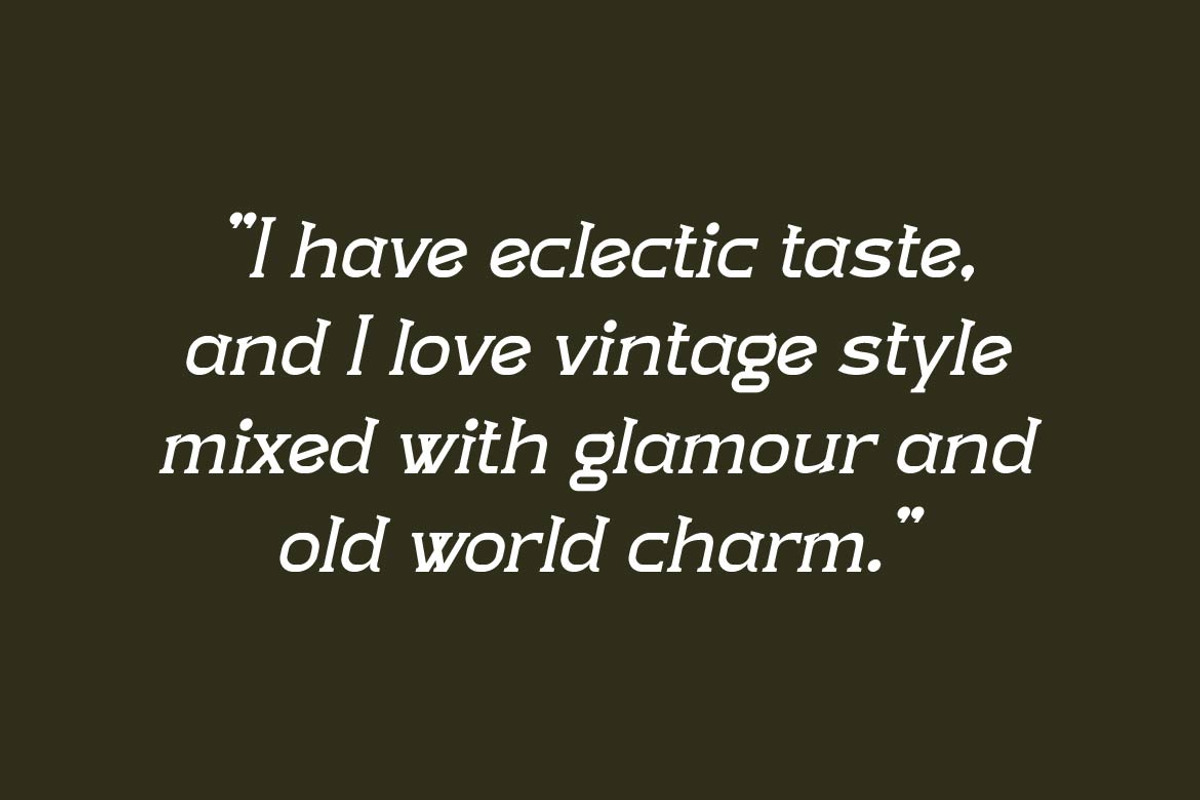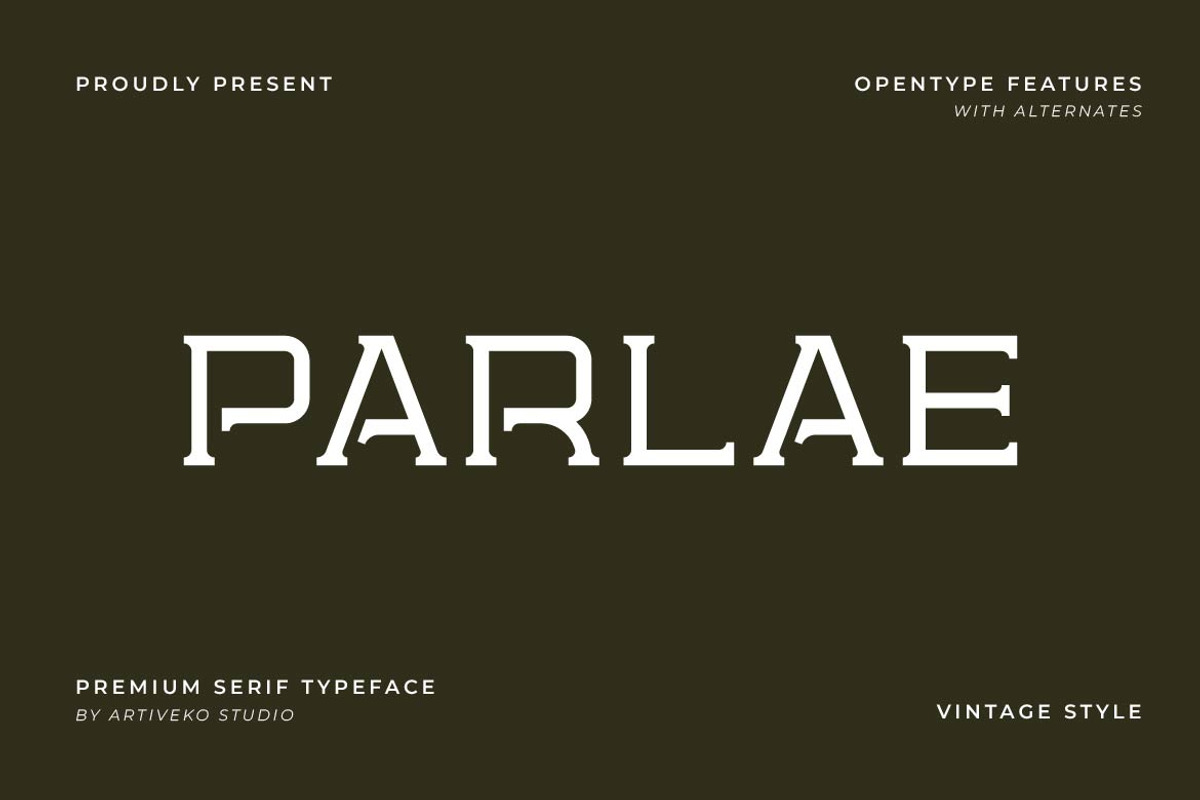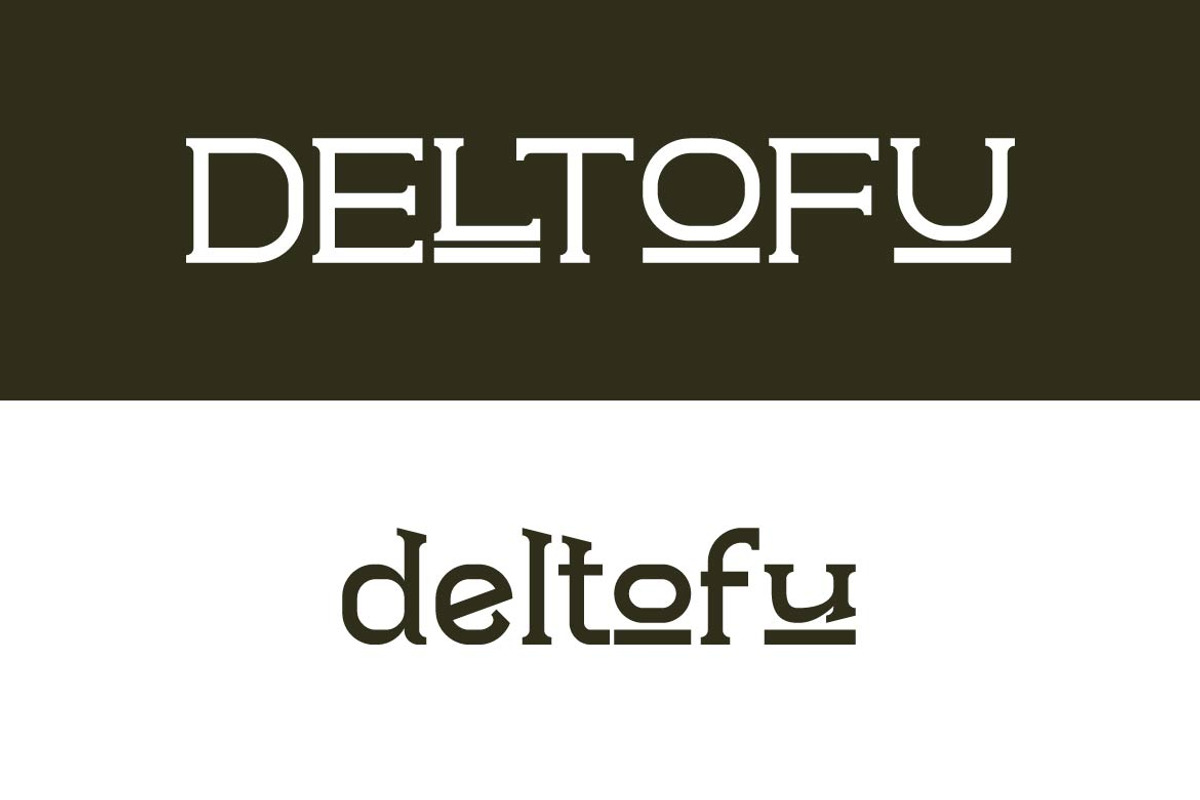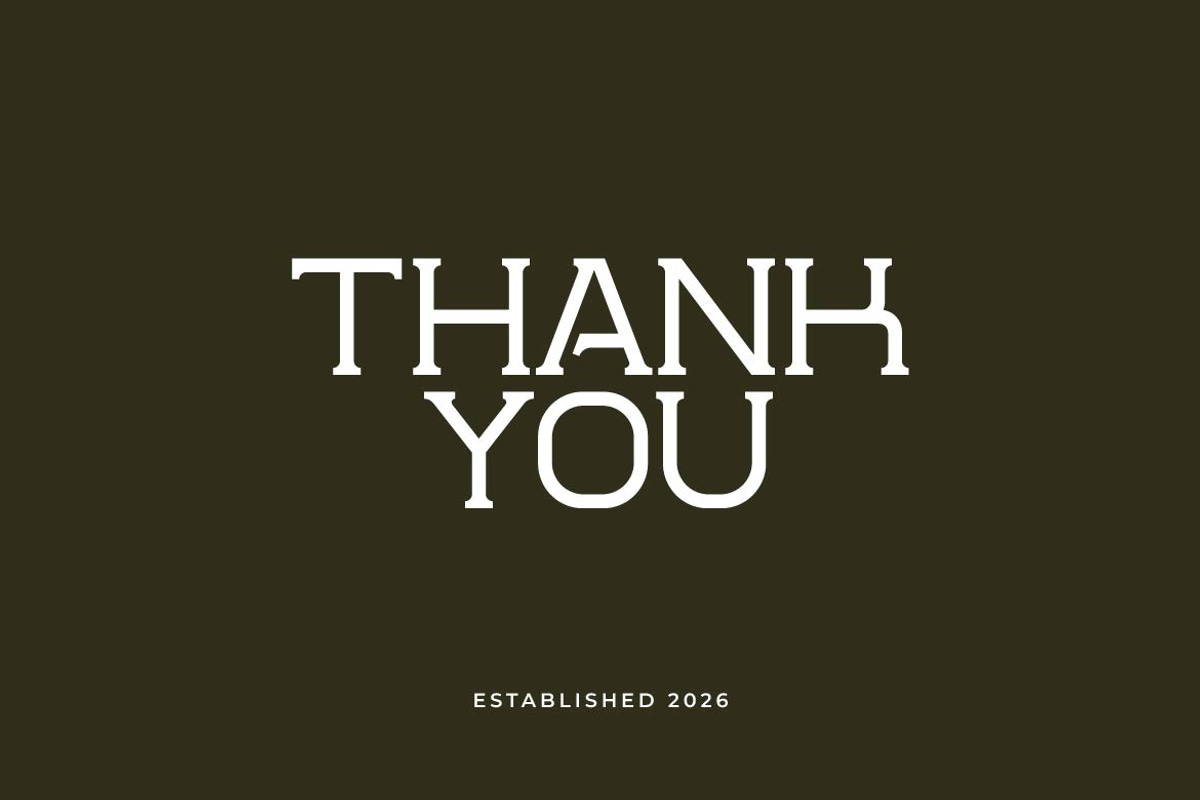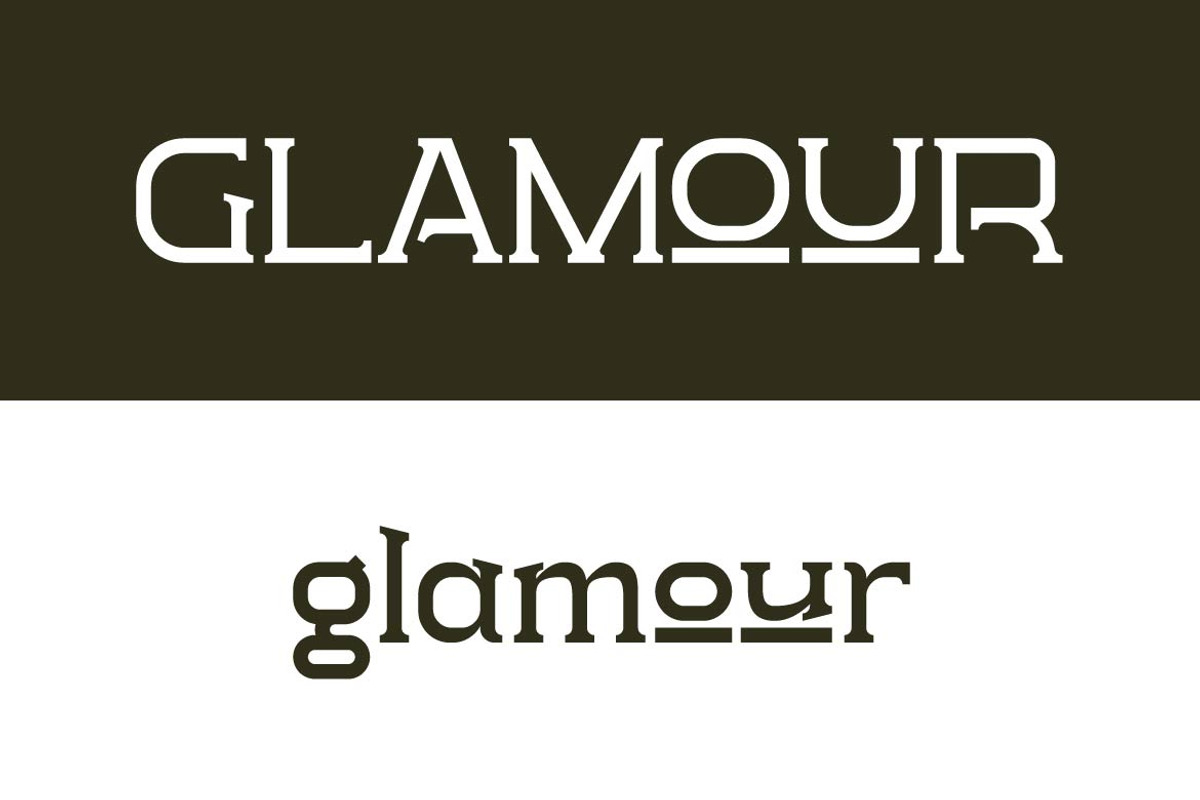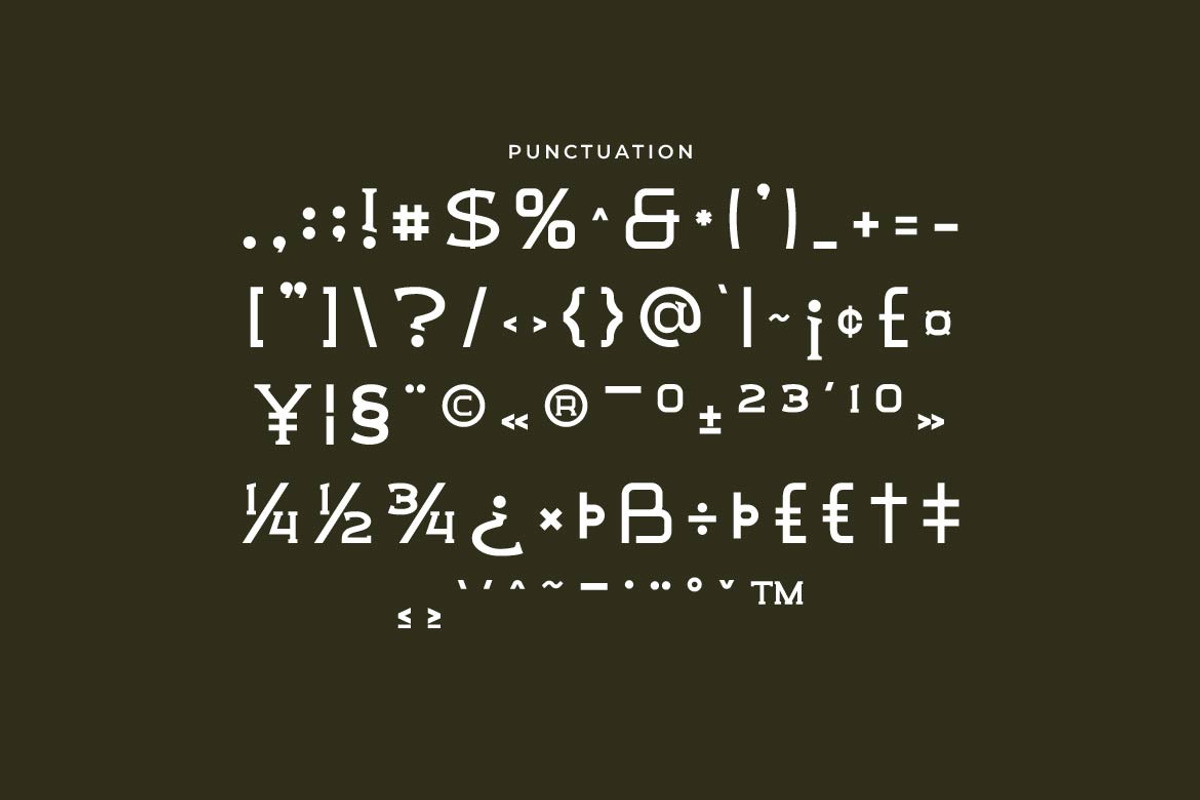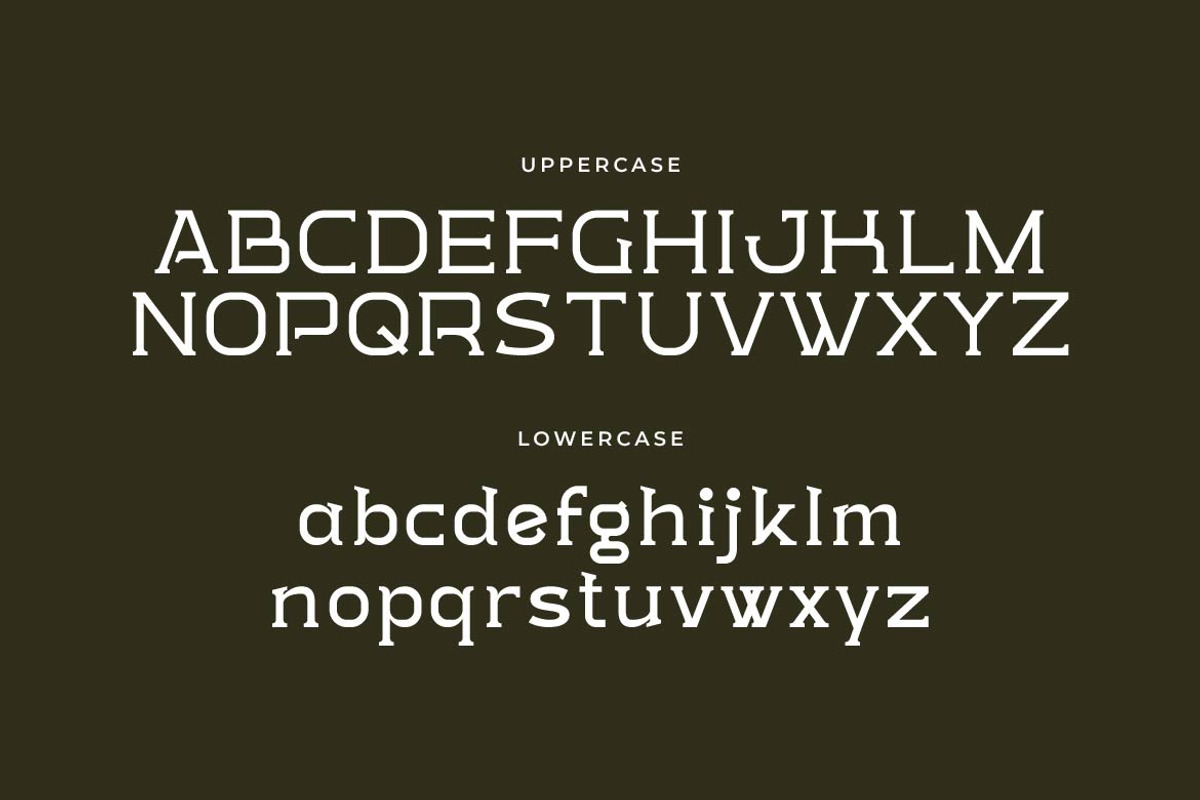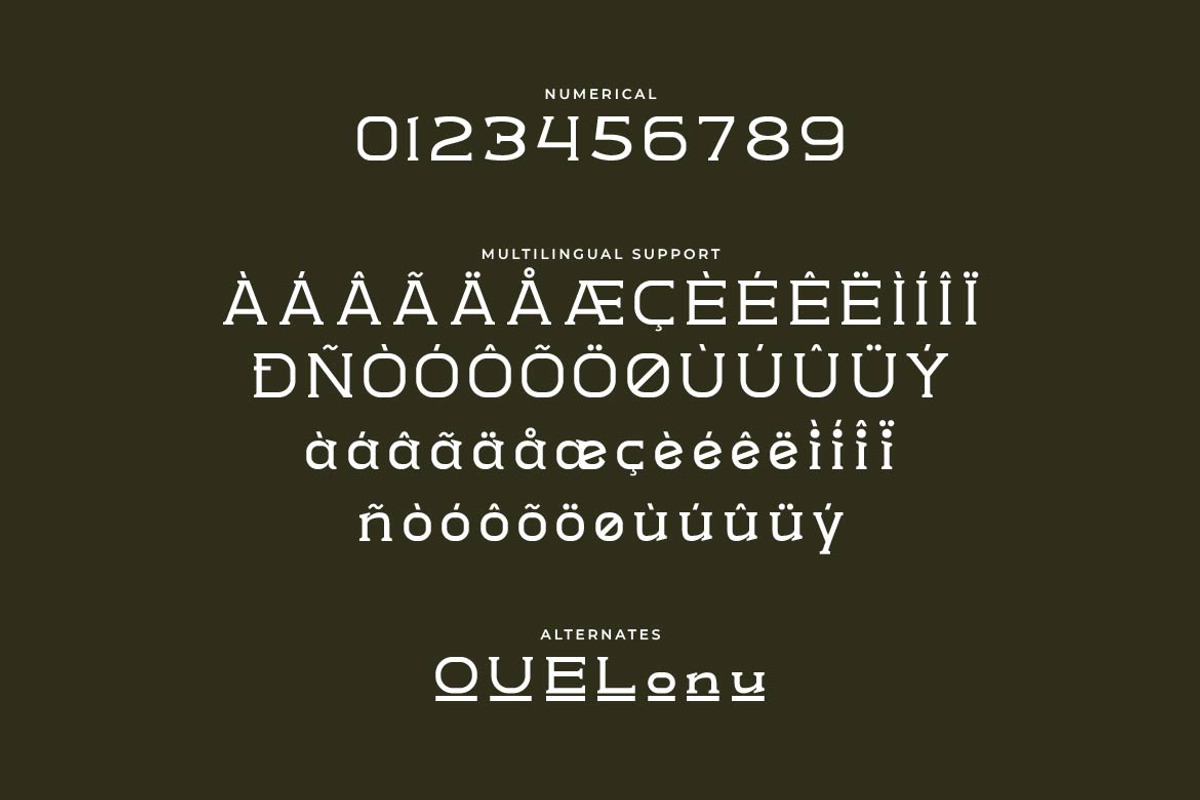
Parlae – Vintage Serif Font
Parlae is a vintage serif typeface that blends timeless elegance with classic craftsmanship. Inspired by traditional typography and refined serif details, Parlae delivers a sophisticated personality that feels authentic, warm, and enduring.
Ton of glyphs